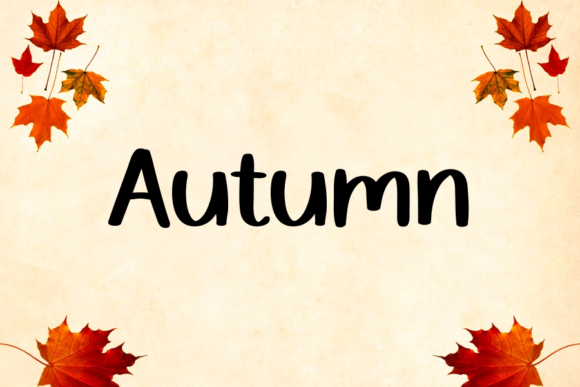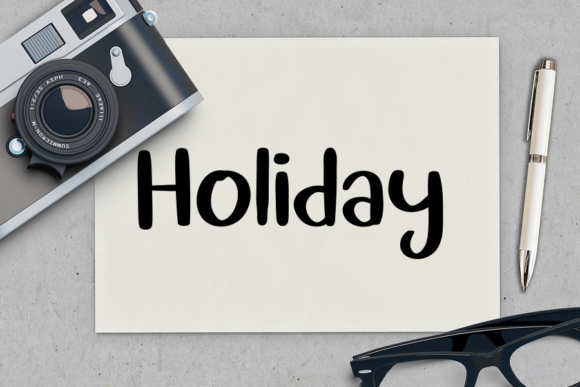
Magic Mermaid Font
db-ku.com - Script & Handwritten -- Magic Mermaid is a fun, chic and playful handwritten font. Add it to each of your party invitation, gathering or pretty much any design that requires a touch of youth and joy.